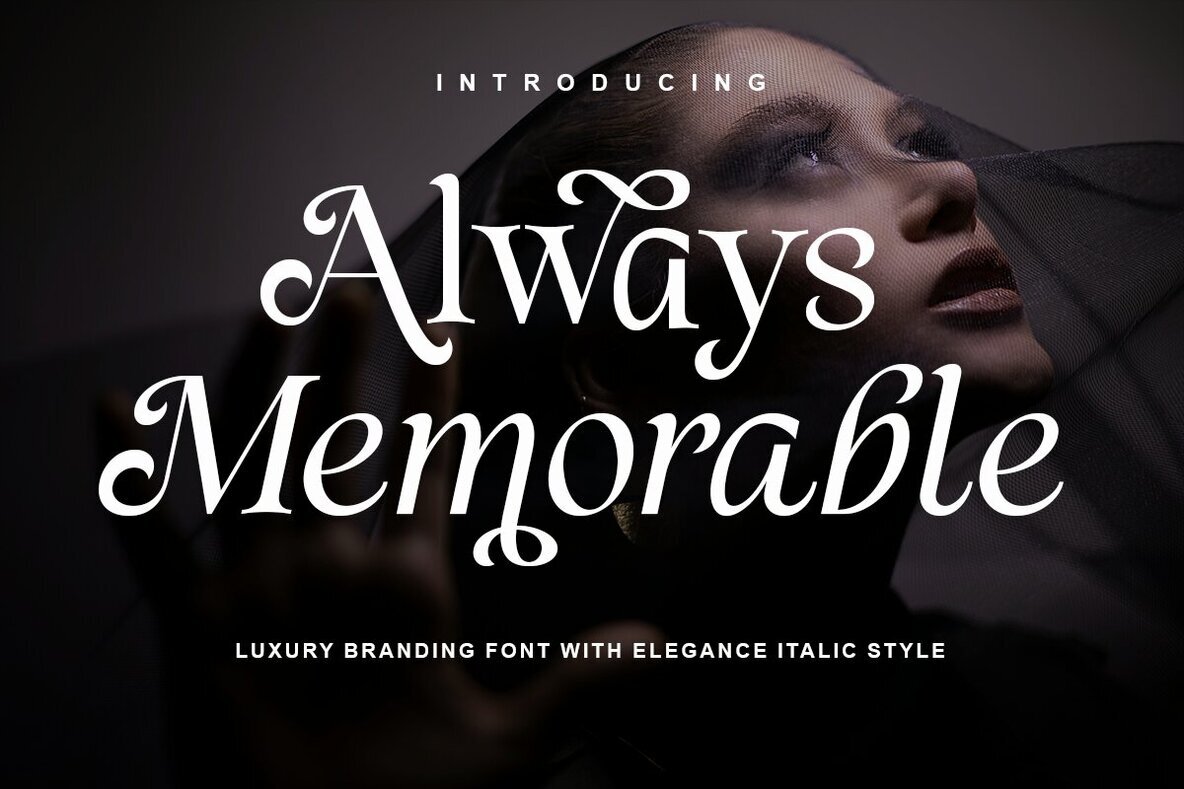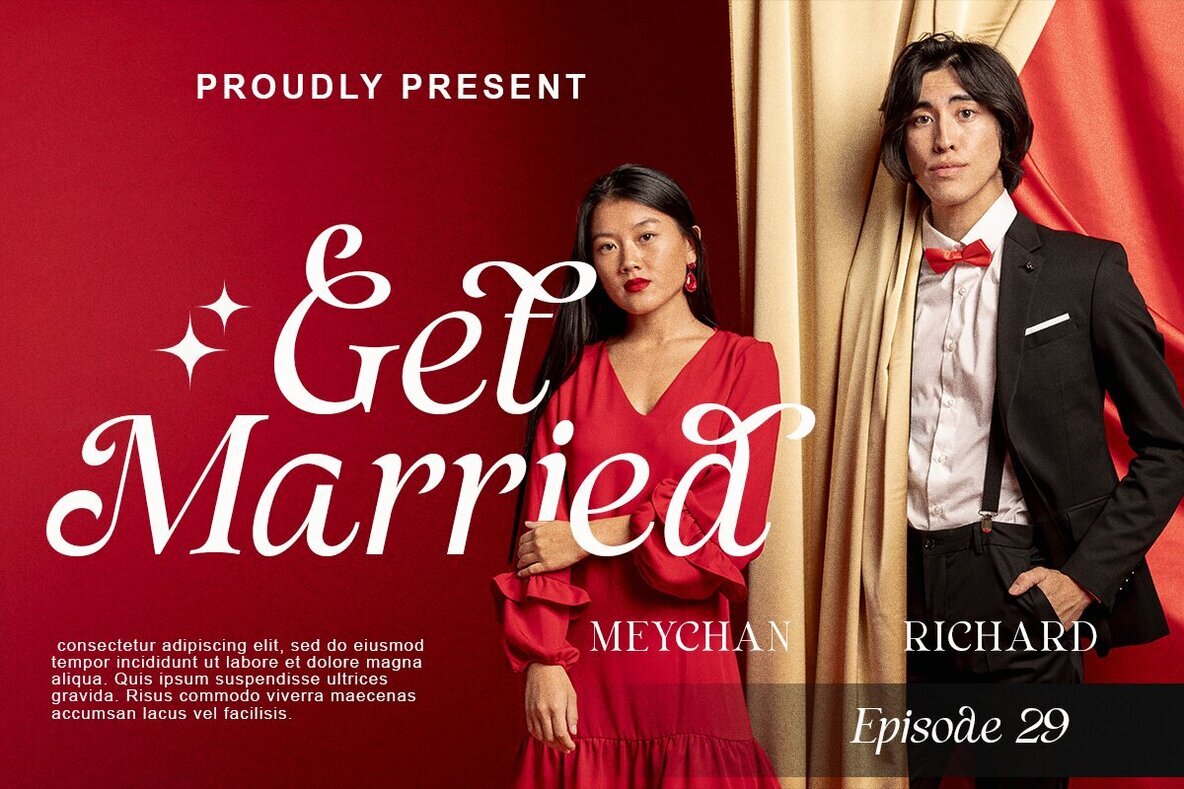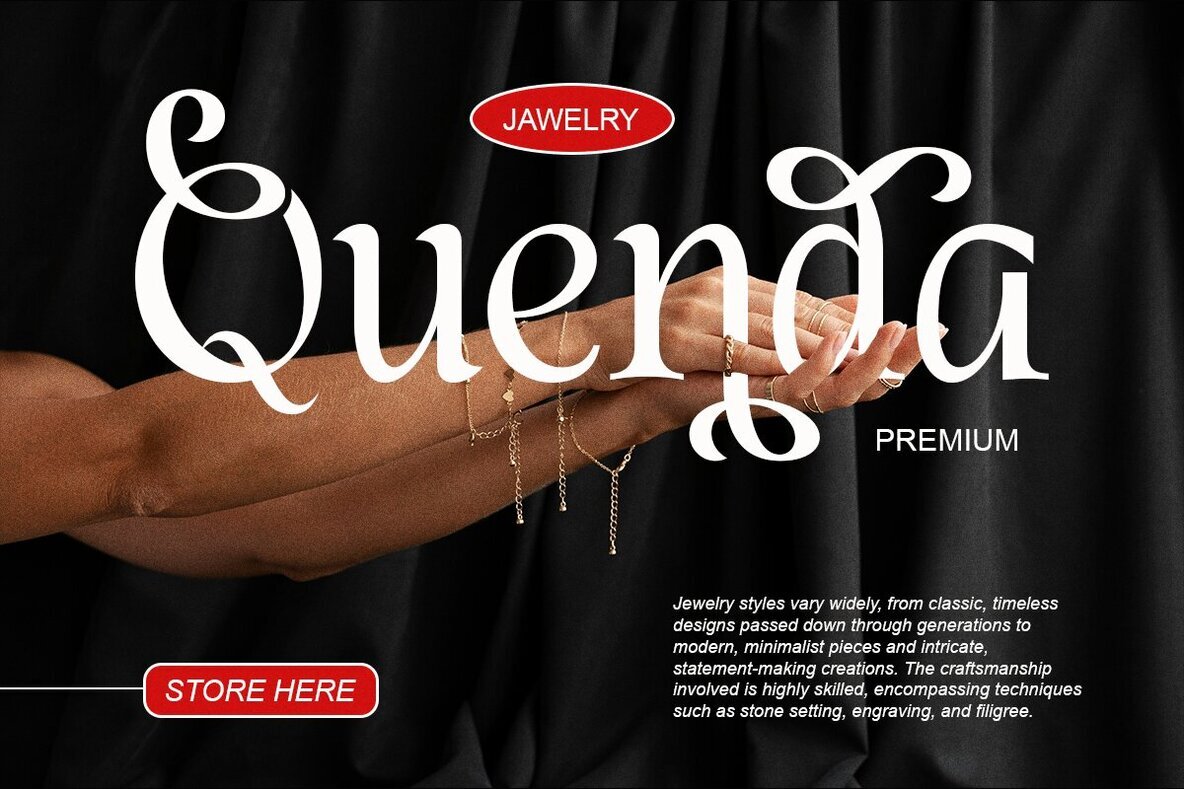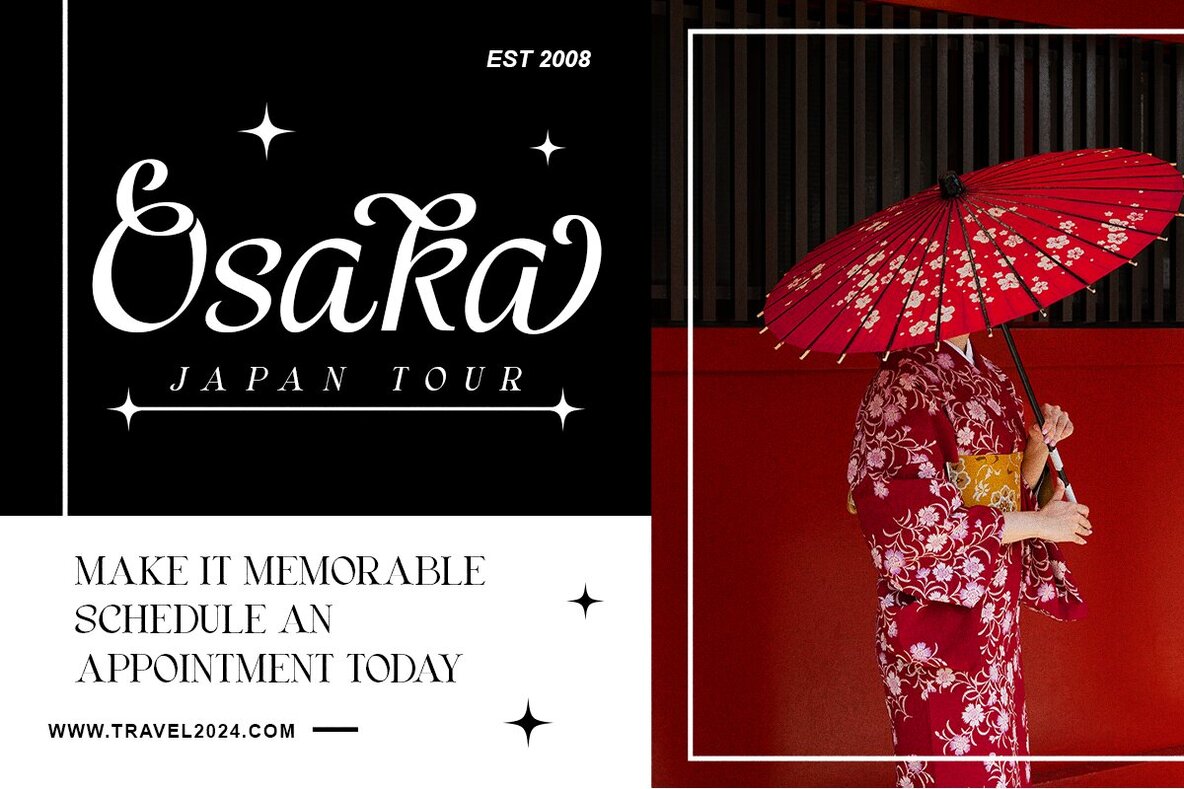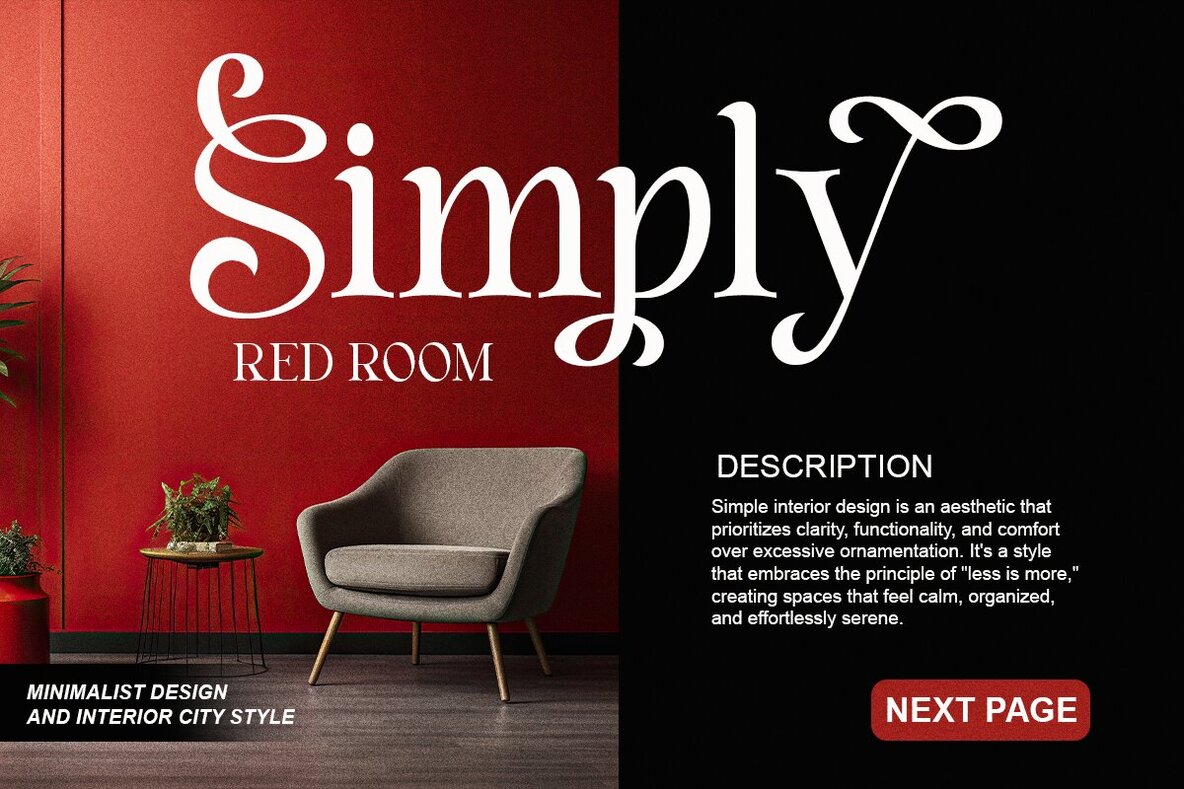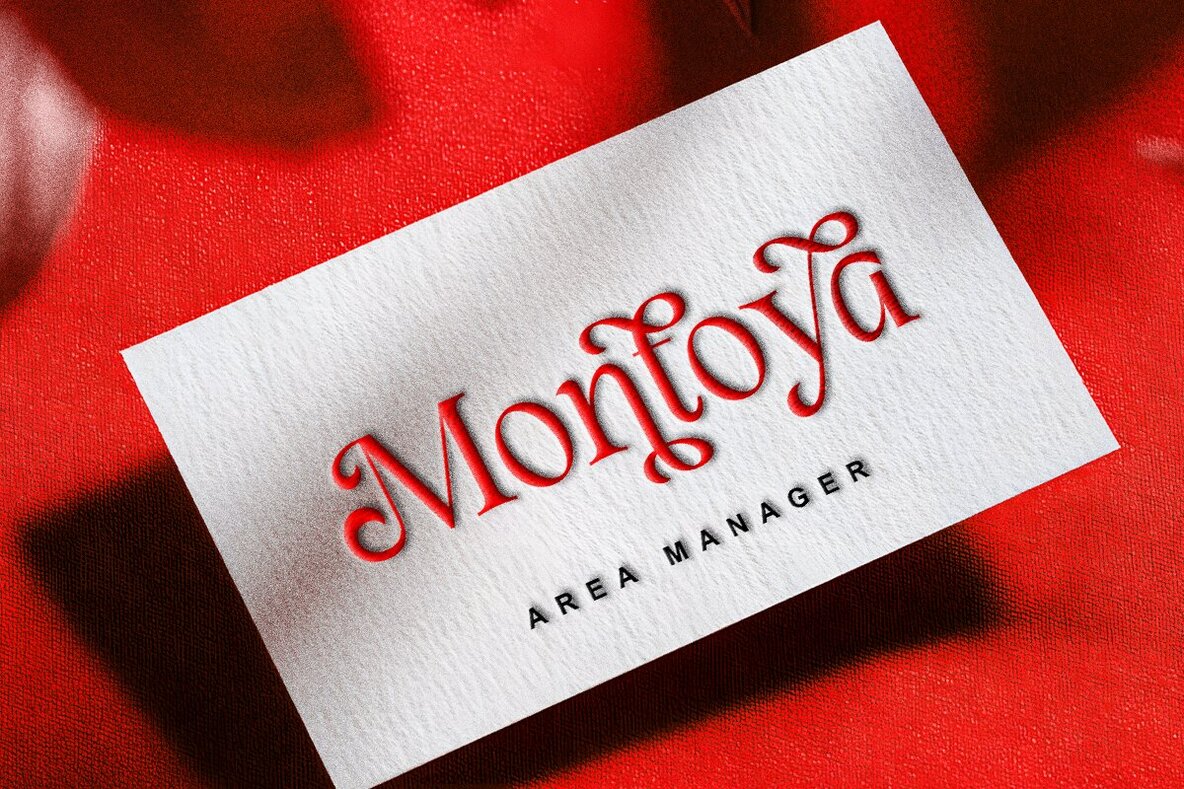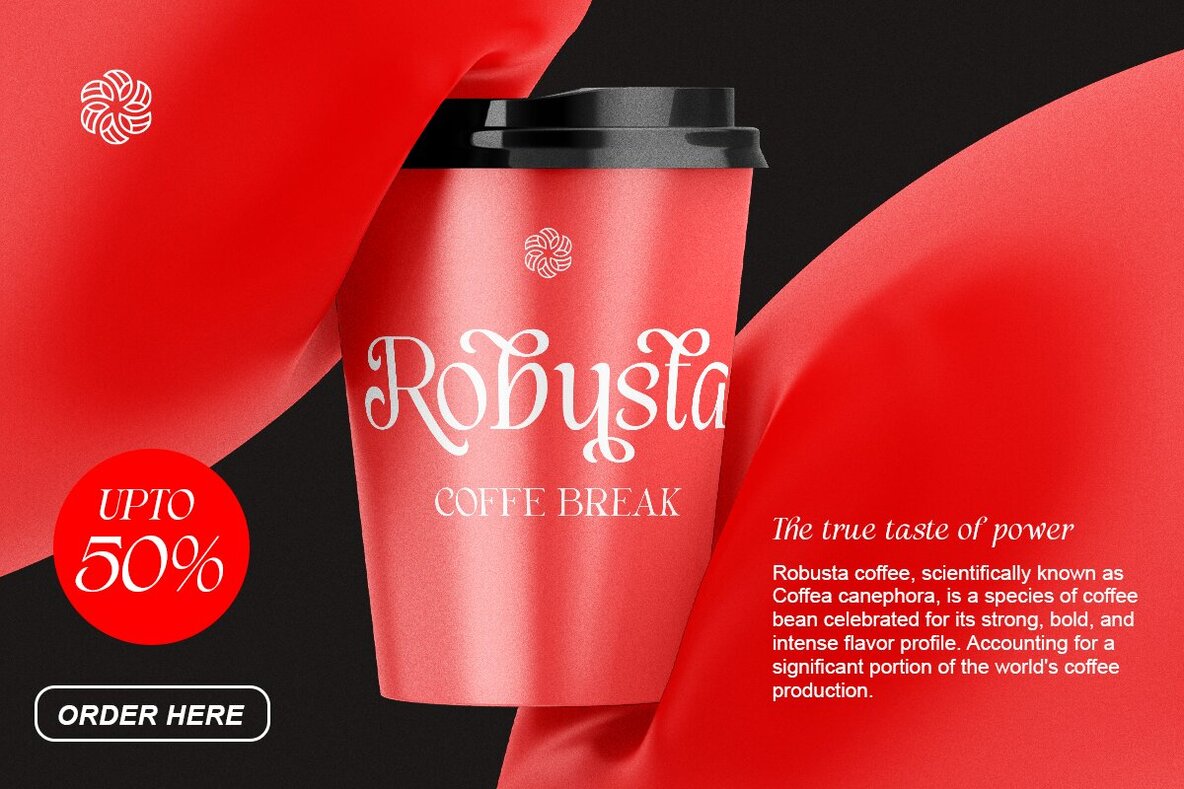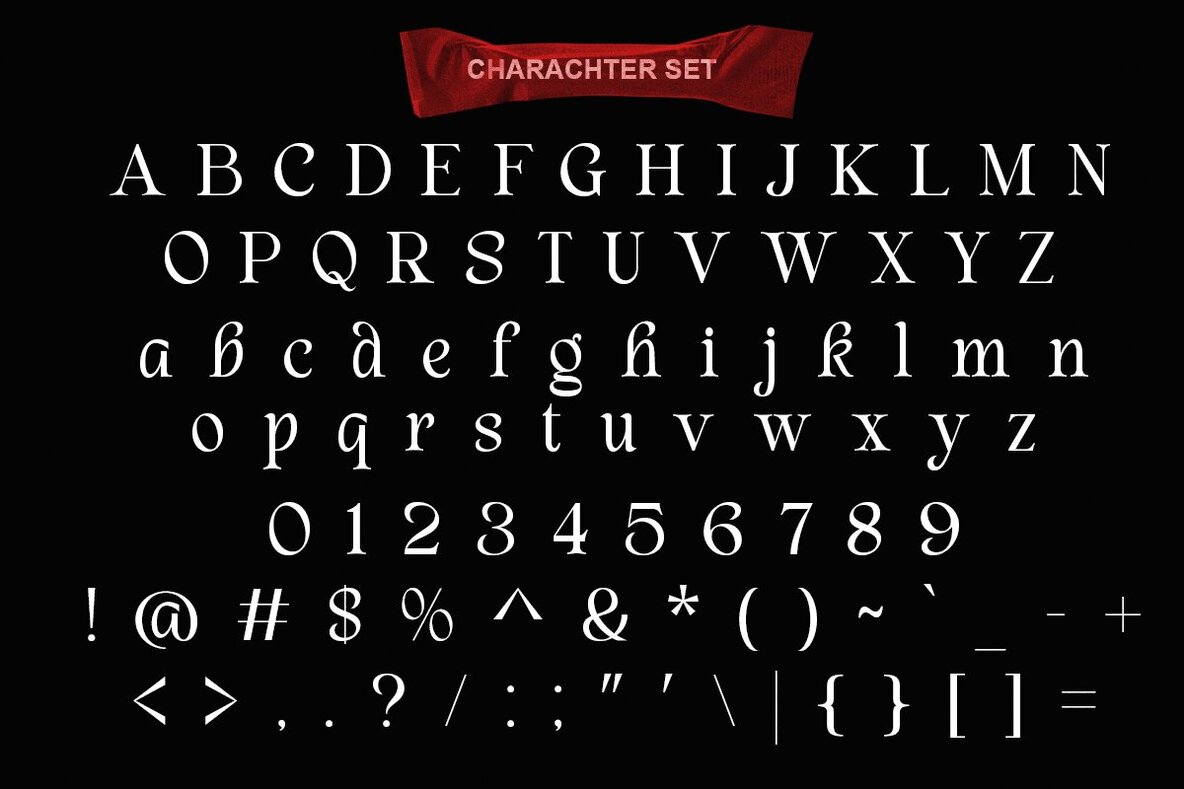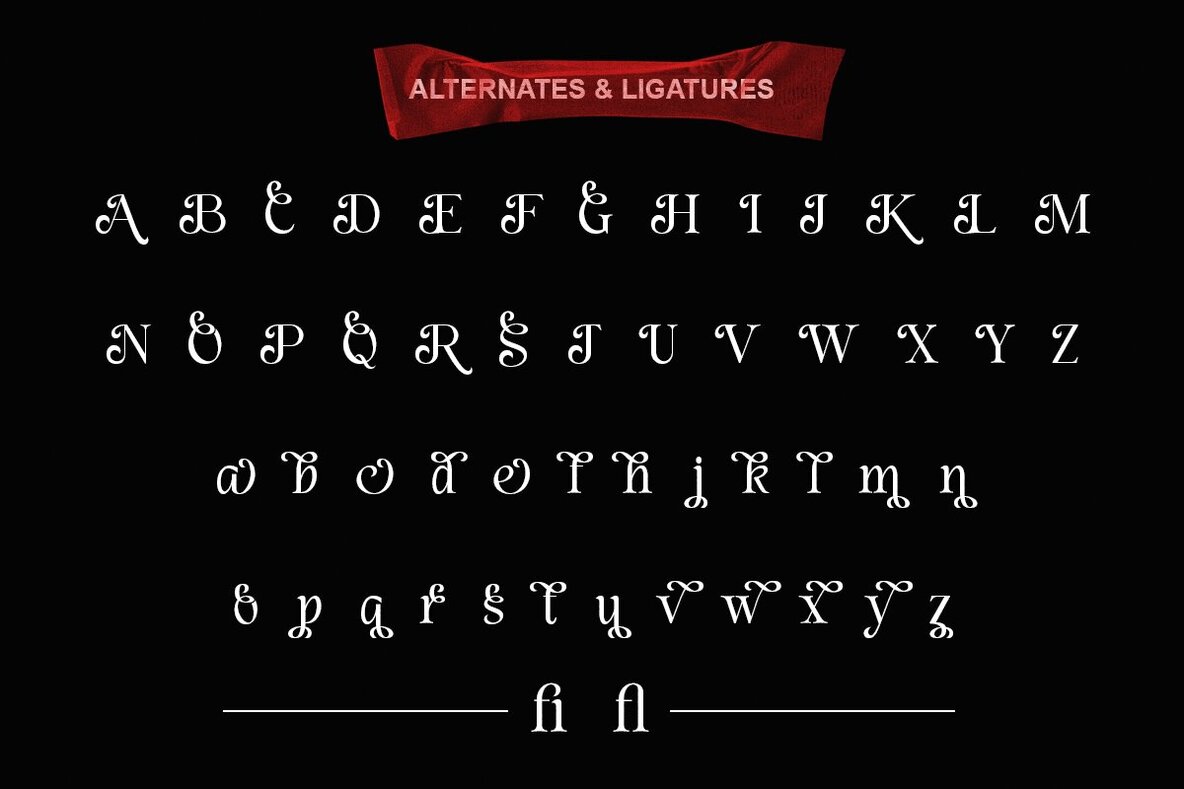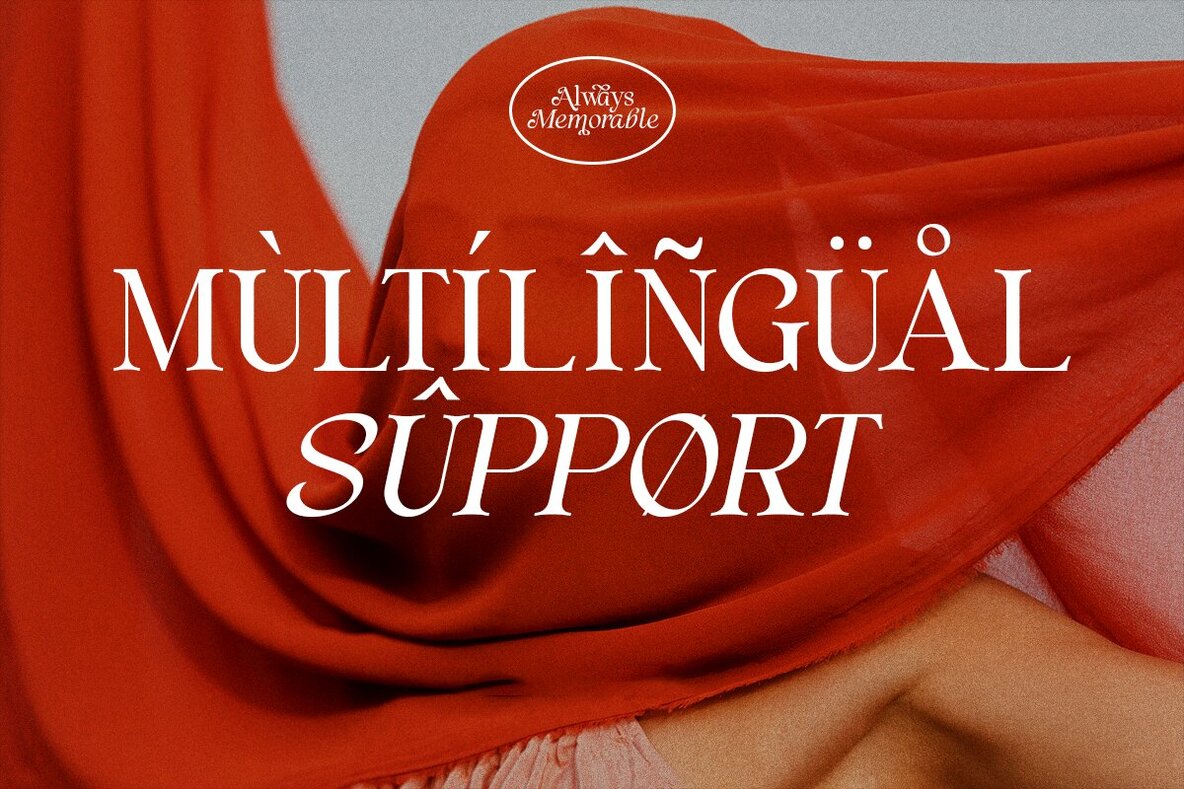
Always Memorable Font
Always Memorable is a sophisticated serif font that exudes elegance with a touch of romance. Its classic charm is infused with a modern flair, making it both timeless and contemporary. Designed to add a dash of playfulness while retaining class, this font is an ideal choice for luxury branding, lifestyle logos, and wedding invitations.Always Memorable Font Collection